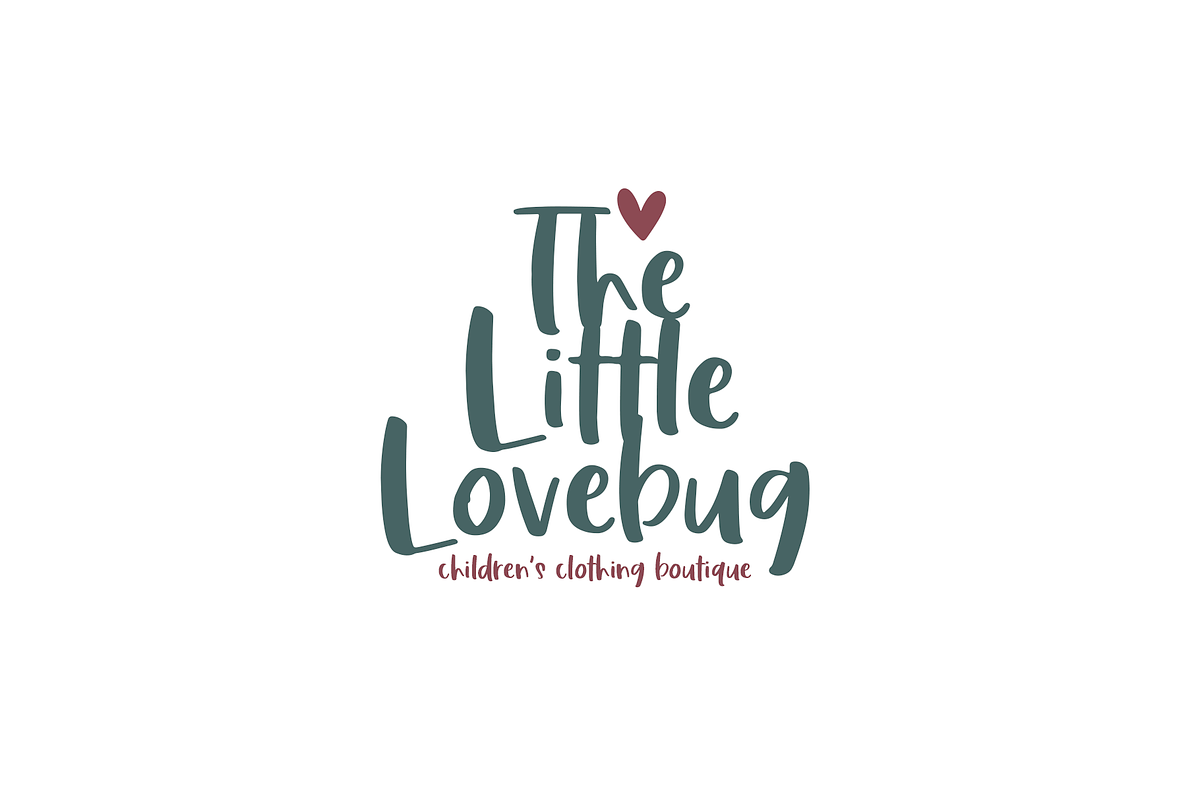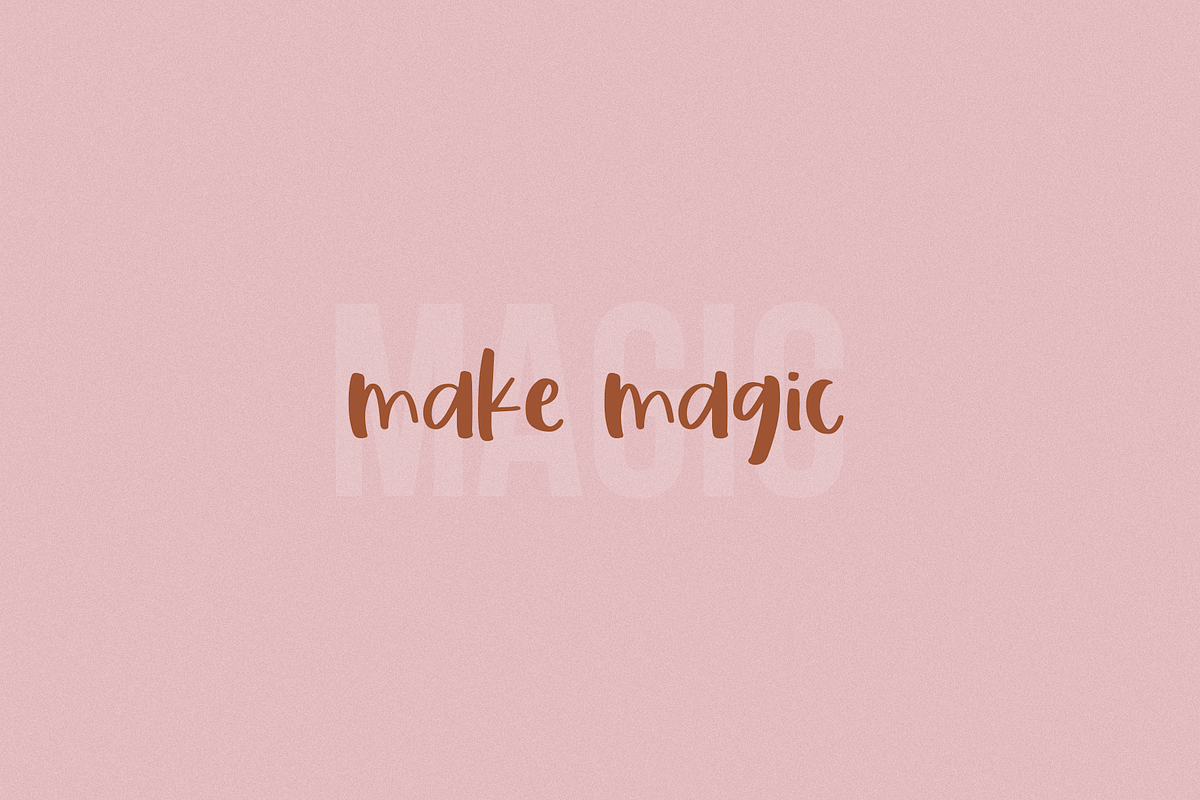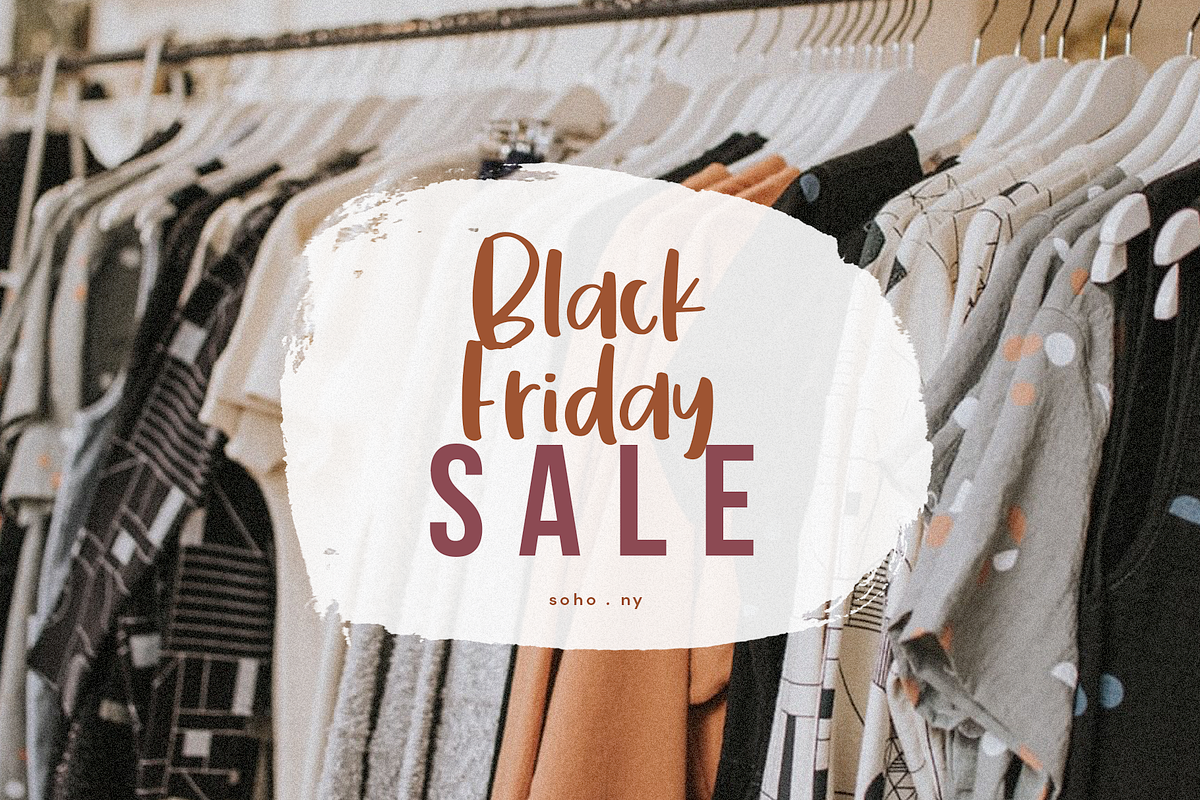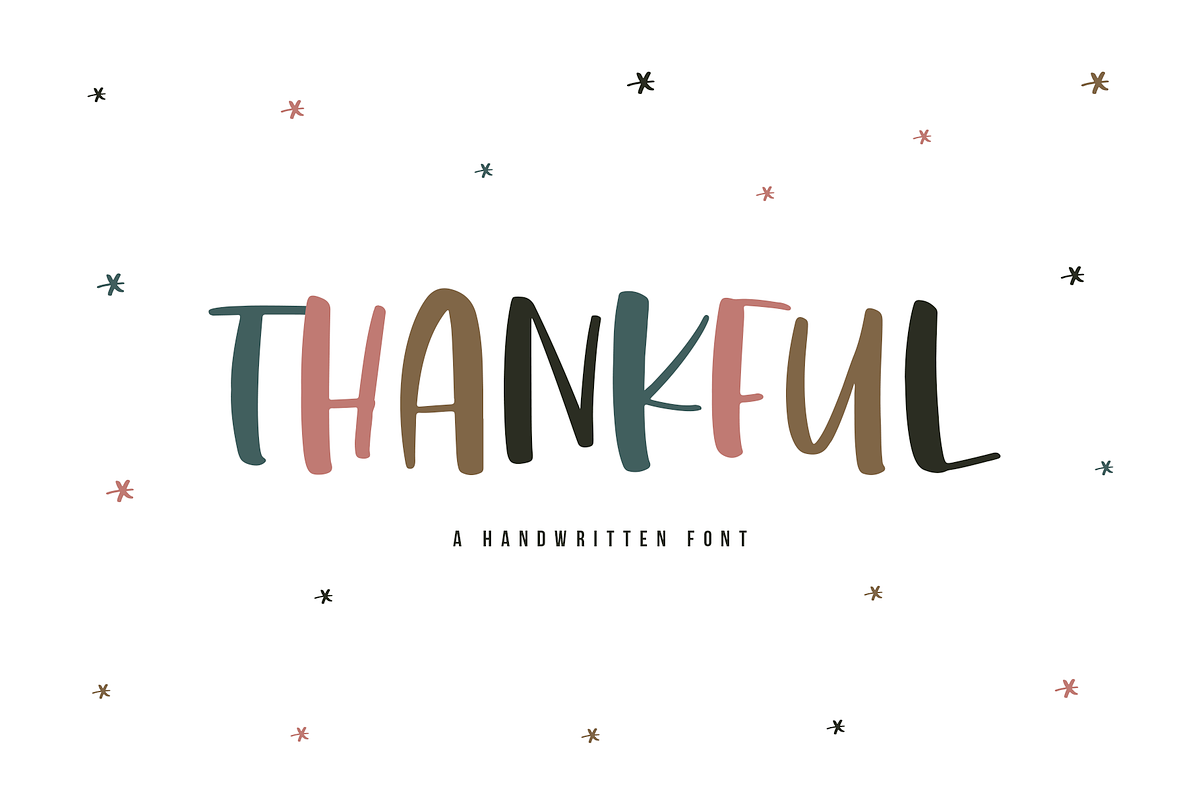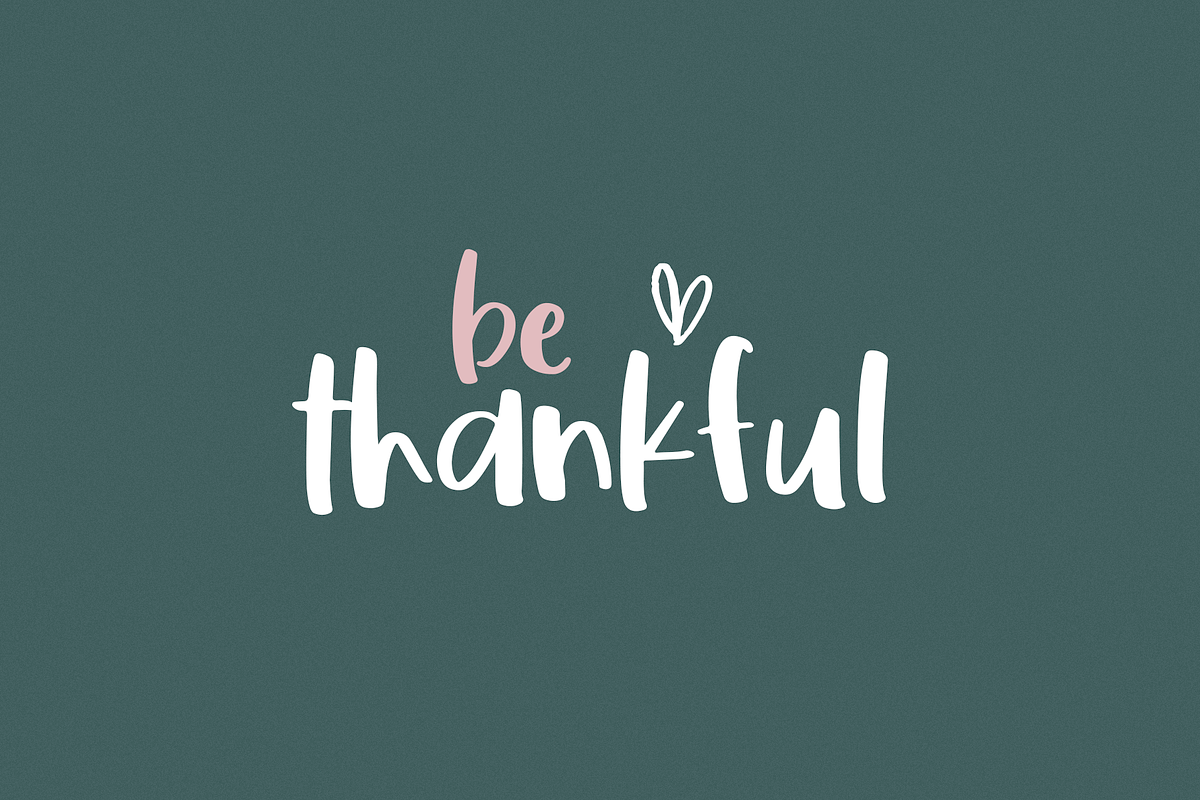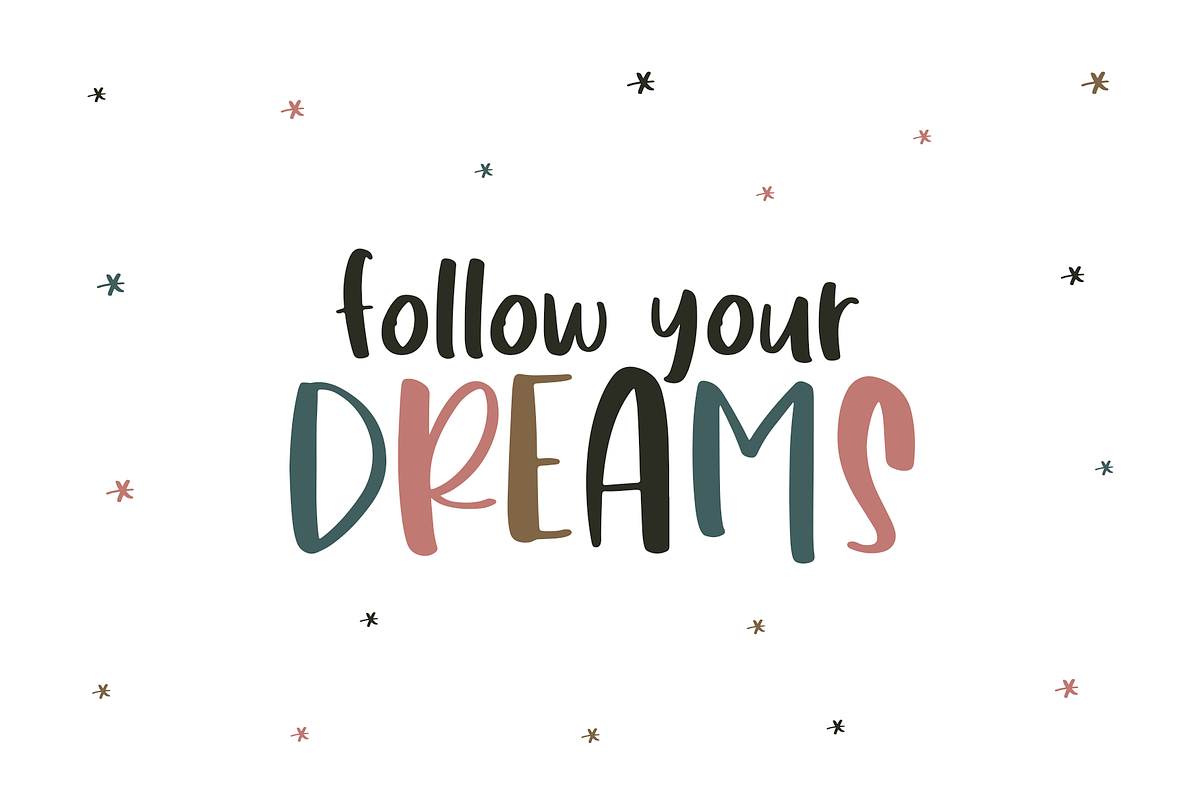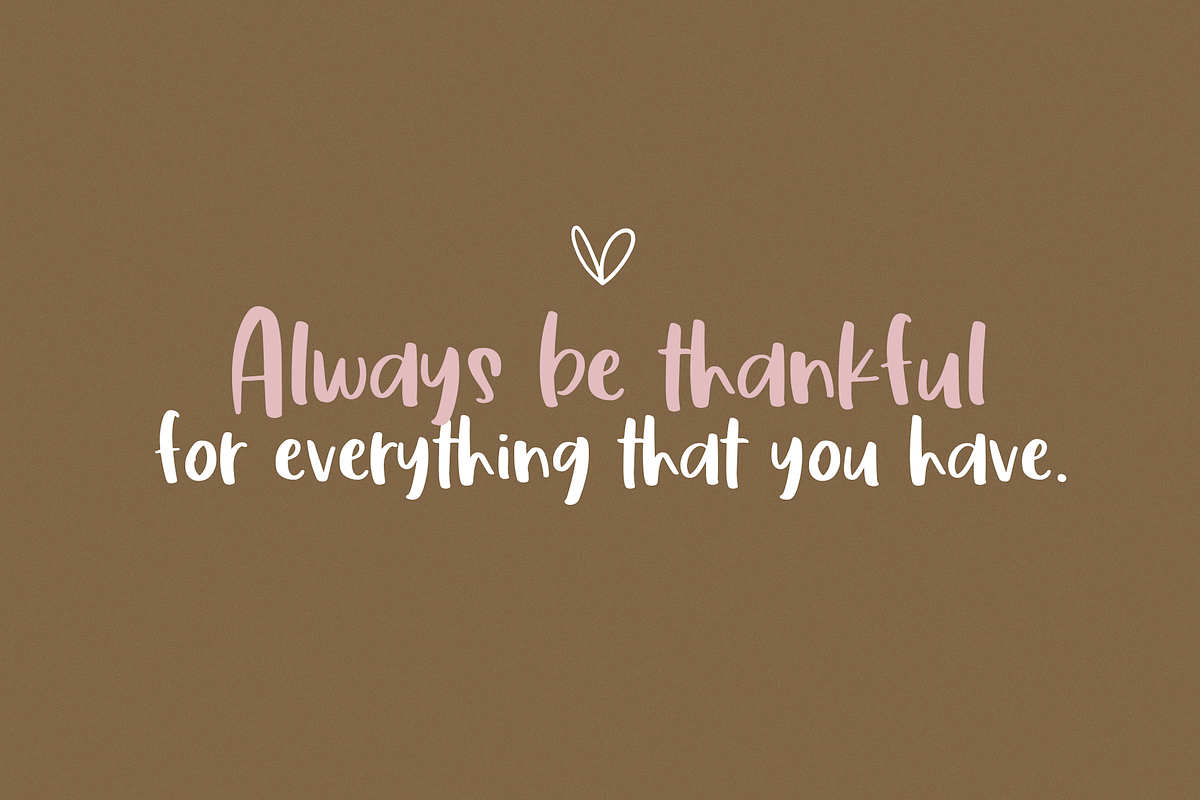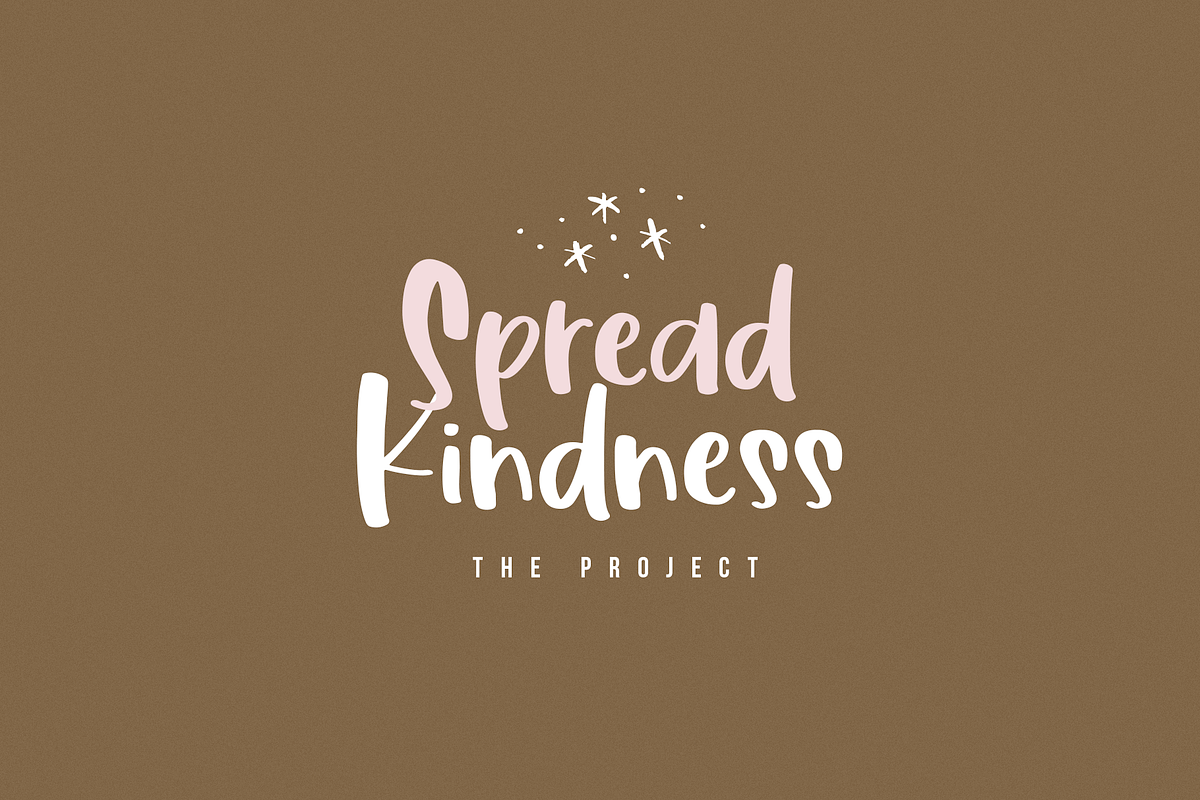
Thankful | A Fun Handwritten Font
Thankfulis a fun handwritten font!
This font is perfect for modern projects, headings, blogs, logos, brandings, invitations, shirts, mugs, svg designs and more!